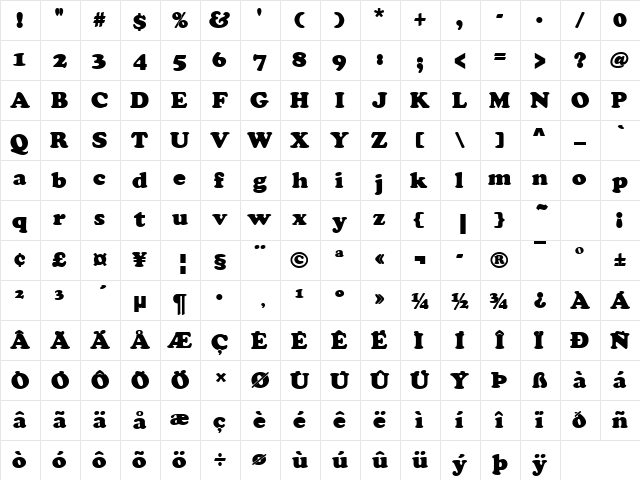
Cooper Becker Poster Black Regular
Design Context for Cooper Becker Poster Black Typeface
Cooper Becker Poster Black takes a measured approach to typography — its balanced proportions and neutral character make it a reliable workhorse for both digital and print work.